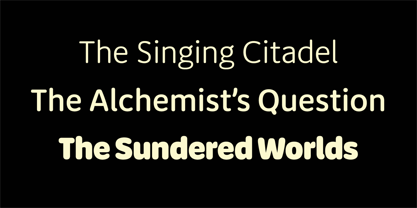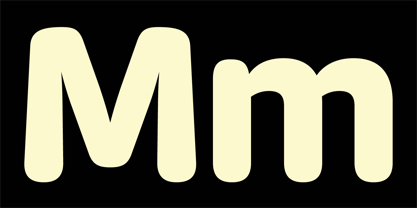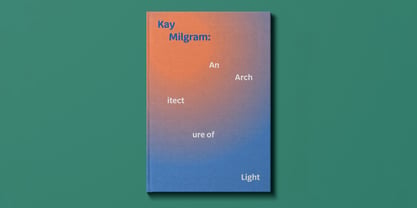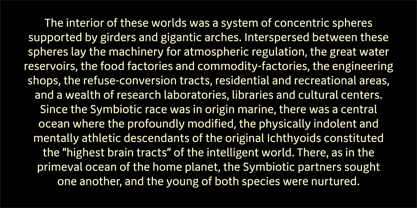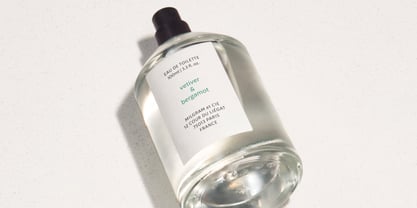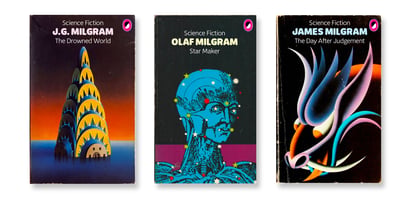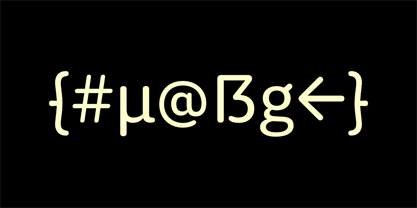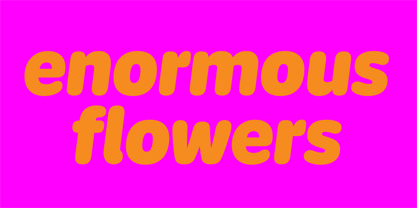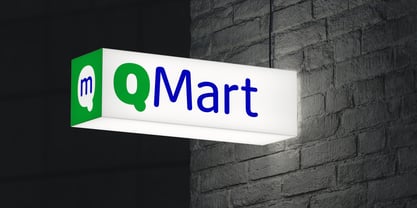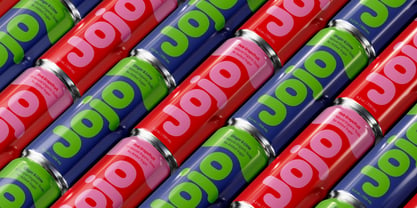
Milgram
We’d always wanted to add a humanist sans to the library, and we’d always wanted to add a rounded sans to the library, and we thought we’d save time by making them the same typeface and see what happened, and what happened was a wave of nostalgia for the 60s heyday of Frankfurter and VAG Rundschrift and an all-caps dry-transfer face called Formula One that nobody seems to remember but us. The lightest weights have a slightly technical air, as if they’d been engraved on a glass beaker. In contrast, the Black weight is zaftig and maybe a bit Bootsy Collins. Counters and apertures are very open and contrast is low, for added readability. Is this our answer to Calibri? No, but thanks for asking. Supports 140-odd languages, including Vietnamese. Matching italics and a full release scheduled for mid-2026. In the meantime, if anyone wants to use this on a new edition of Michael Moorcock sci-fi, they would make us very happy.